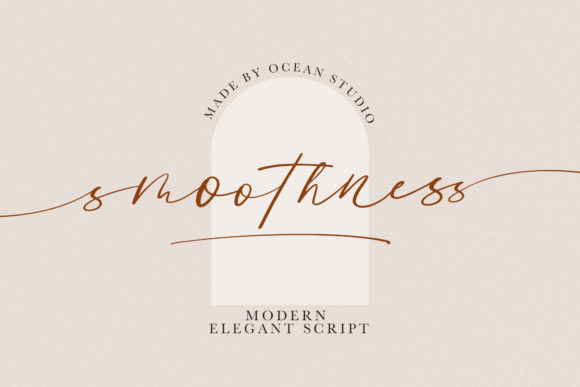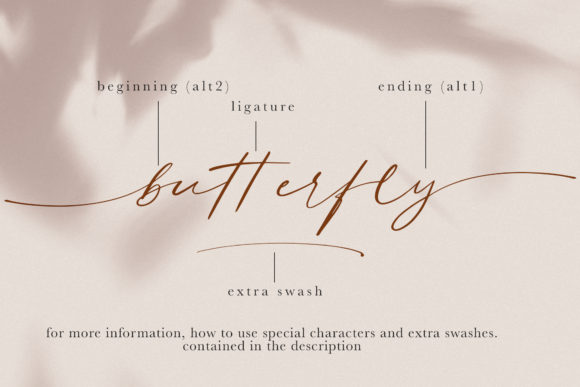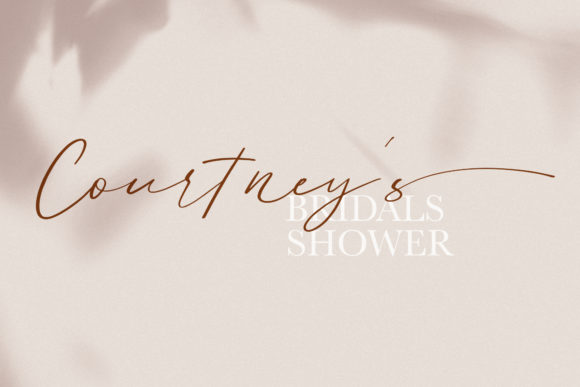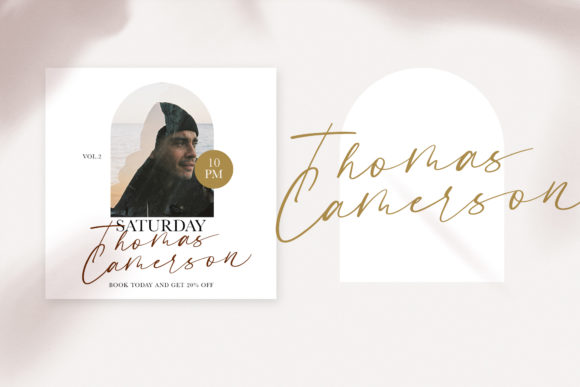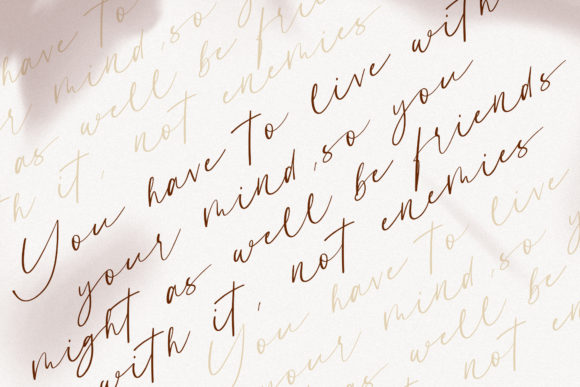
About Smoothness Font
Introducing Smoothness, an elegant and flowing handwritten font that radiates beauty and sophistication. This font is a true masterpiece, thoughtfully designed to retain its classy calligraphic influences while incorporating a modern and fresh touch. With Smoothness, you can unlock a world of creative possibilities. Its PUA encoding allows easy access to a wide range of glyphs and swashes, while its varying baseline, smooth lines, gorgeous glyphs, and stunning alternates are ready to elevate your projects to new heights of excellence and allure.
Smoothness emanates a sense of timeless elegance, as if each letter was carefully crafted with the skill of a master calligrapher. The smooth strokes flow effortlessly, creating a harmonious and captivating appearance that leaves a lasting impact. Whether you’re designing wedding invitations, love letters, or inspiring quotes, Smoothness adds a touch of refinement that enchants and mesmerizes.
The versatility of Smoothness knows no bounds. As you fall in love with this font, you’ll discover how it effortlessly complements a diverse array of design projects. From branding and logo design to social media graphics, blog headers, and digital artwork, Smoothness seamlessly adapts to any style, enhancing your creations with its exquisite allure.
With its PUA encoding, Smoothness offers you a treasure trove of glyphs and swashes at your fingertips. This feature empowers you to add personalized embellishments and decorative elements to your designs with ease, making each project a unique and artful masterpiece.
For special occasions and momentous events, Smoothness is a captivating choice. Imagine using it for wedding stationery, where the font’s elegance and flowing lines set the perfect tone for a day filled with love and celebration.
Moreover, in branding and logo design, Smoothness shines bright. Its calligraphic influences create a logo that exudes sophistication and refinement, reflecting your business’s identity with grace.
In the digital realm, Smoothness adds a touch of elegance to social media graphics and blog headers, drawing viewers in and making a memorable impression. Its smooth lines and stunning alternates give your online presence a contemporary and fresh appeal.
In longer passages, Smoothness maintains its legibility, making it a valuable asset for editorial designs like books, magazines, and brochures. Its flowing grace ensures that readers can immerse themselves in the written words, enjoying every nuance and detail.
In conclusion, Smoothness is more than just a font; it’s an exquisite work of art that combines elegance and modern charm. With its PUA encoding, flowing handwritten style, and timeless allure, Smoothness becomes an essential tool for all your design projects. From wedding invitations to branding, social media graphics, and editorial designs, Smoothness elevates your creations to the highest levels of beauty and creativity. Embrace the enchantment of Smoothness and watch as your projects flourish with its captivating allure. Let your creativity soar in the elegant embrace of Smoothness, the flowing handwritten font that defines sophistication.